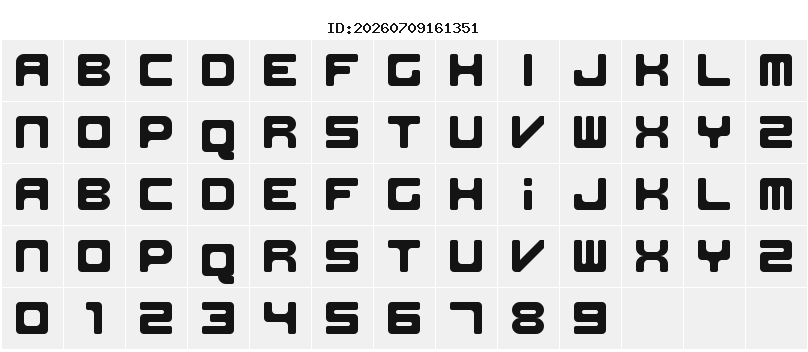
DLE Digital Preview
• Font Name: DLE Digital
• Full Font Name: DLE Digital Regular
• Designer: Daniel Lyons
About DLE Digital.ttf
DLE Digital.ttf is a modern, elegant sans-serif font designed for ultimate readability and visual harmony. Perfect for branding, headlines, web design, and print materials.